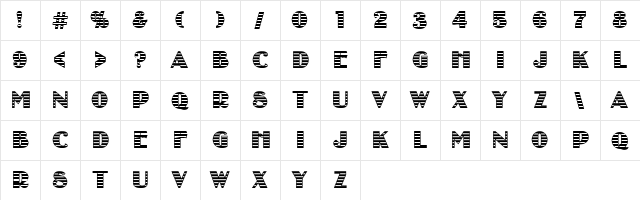
KURTIS BLOW Regular
| Foundry | CHAFOMON |
| Designer | CHAFOMON |
Design Context for KURTIS BLOW Typeface
KURTIS BLOW is a composed and adaptable typeface that performs quietly and consistently across a wide range of design contexts.